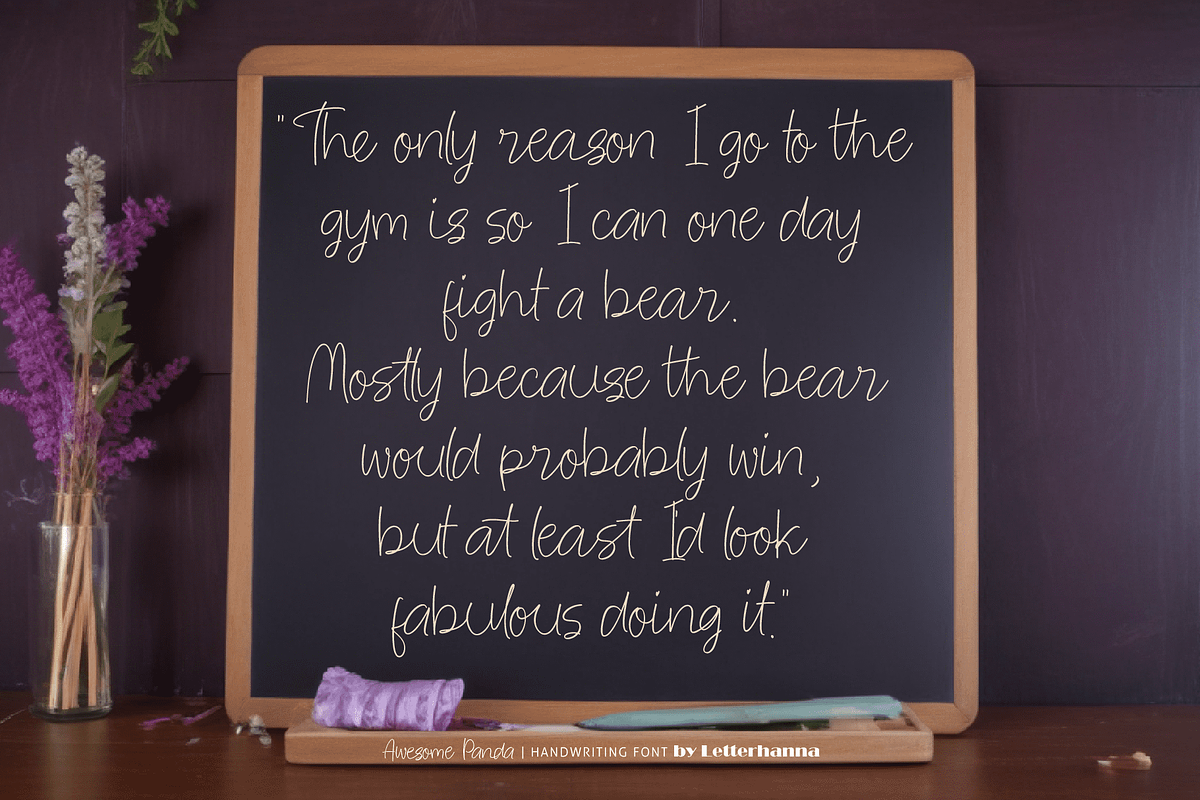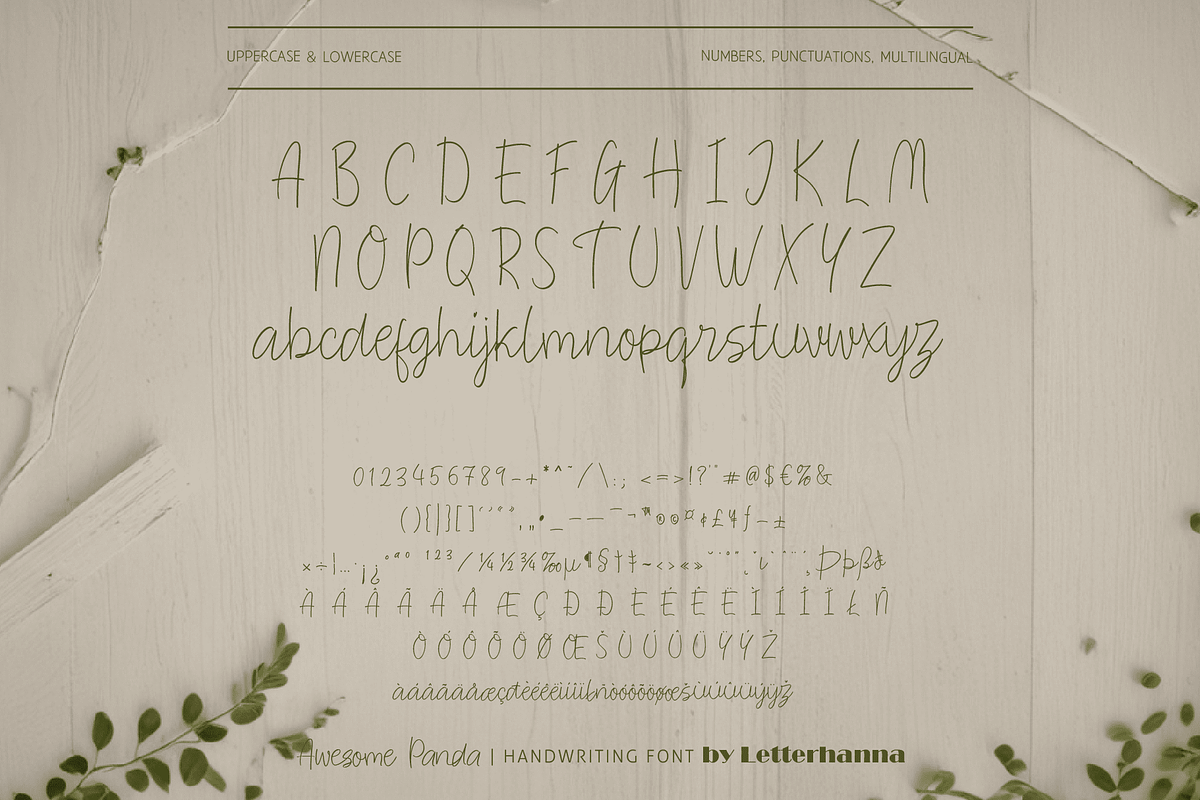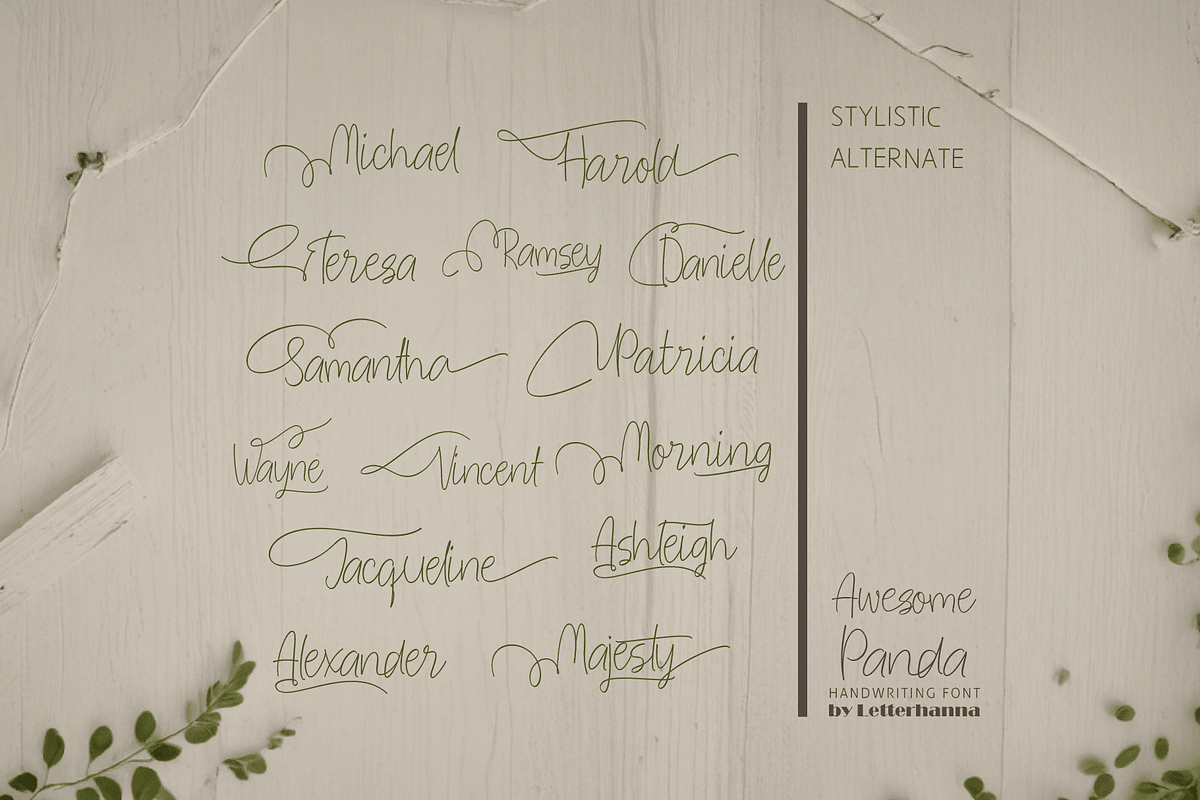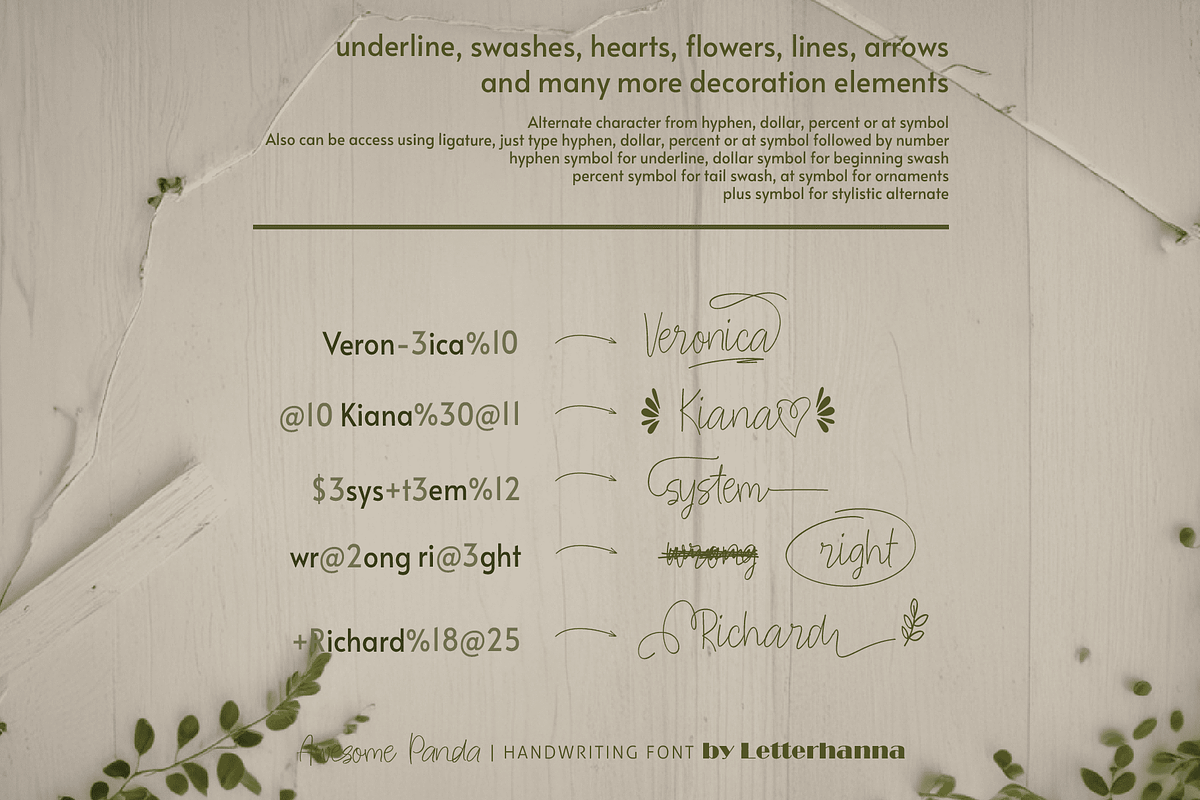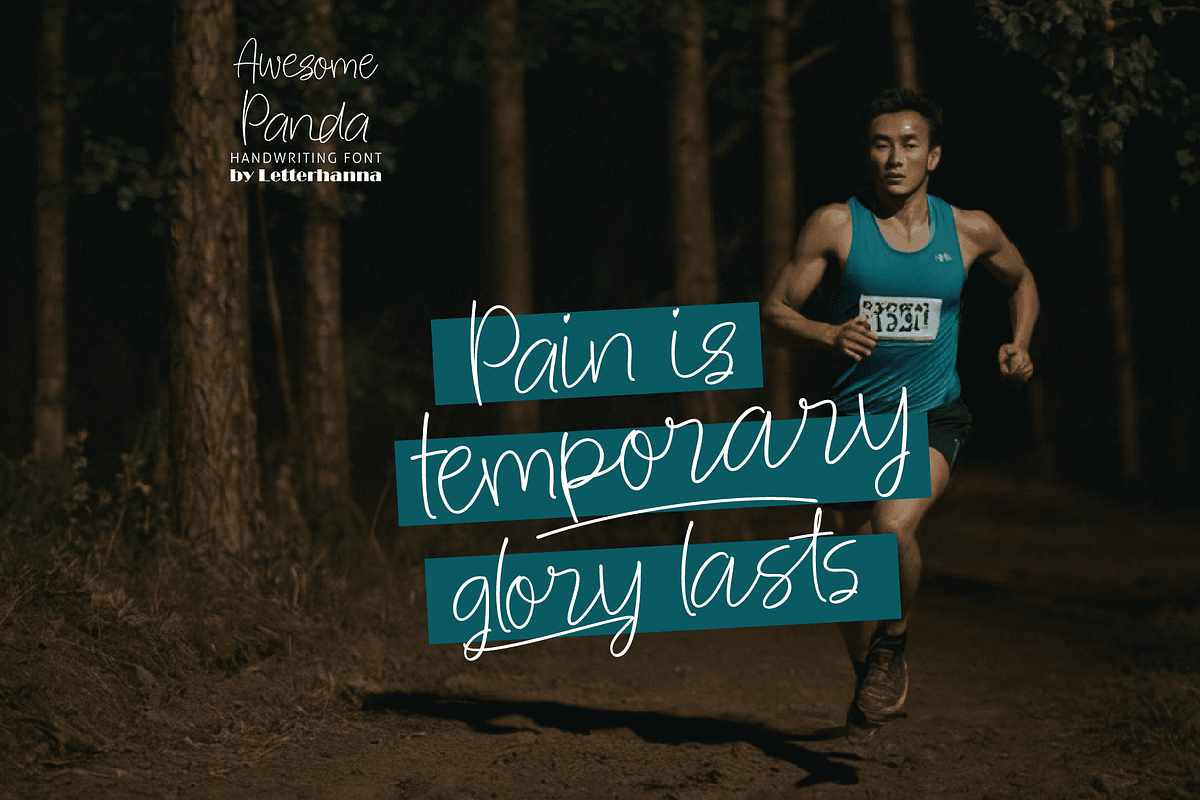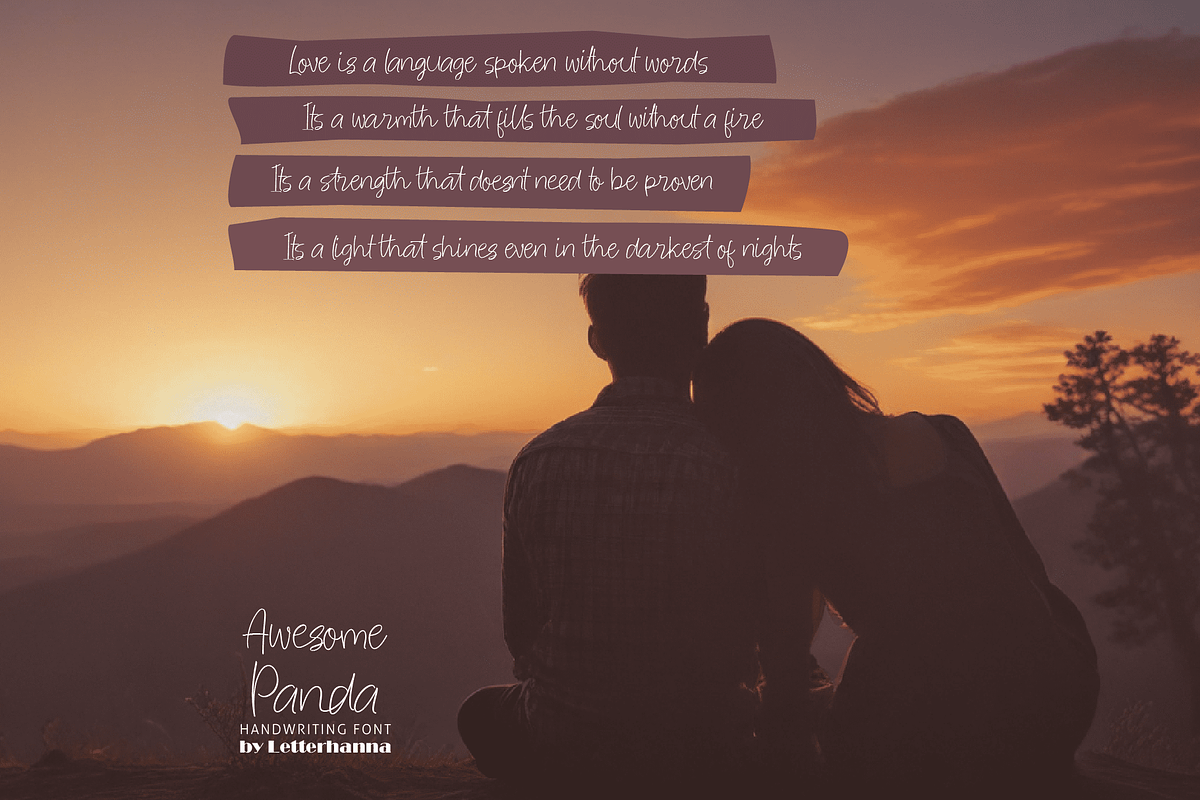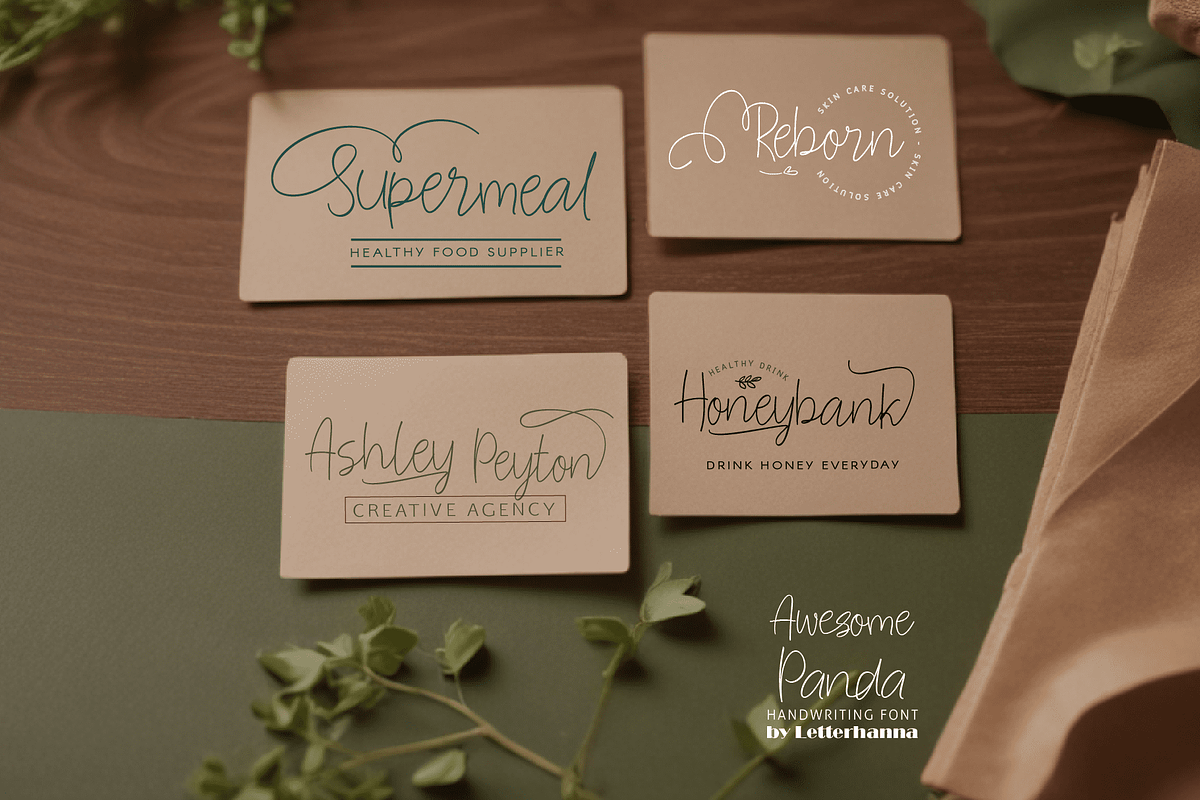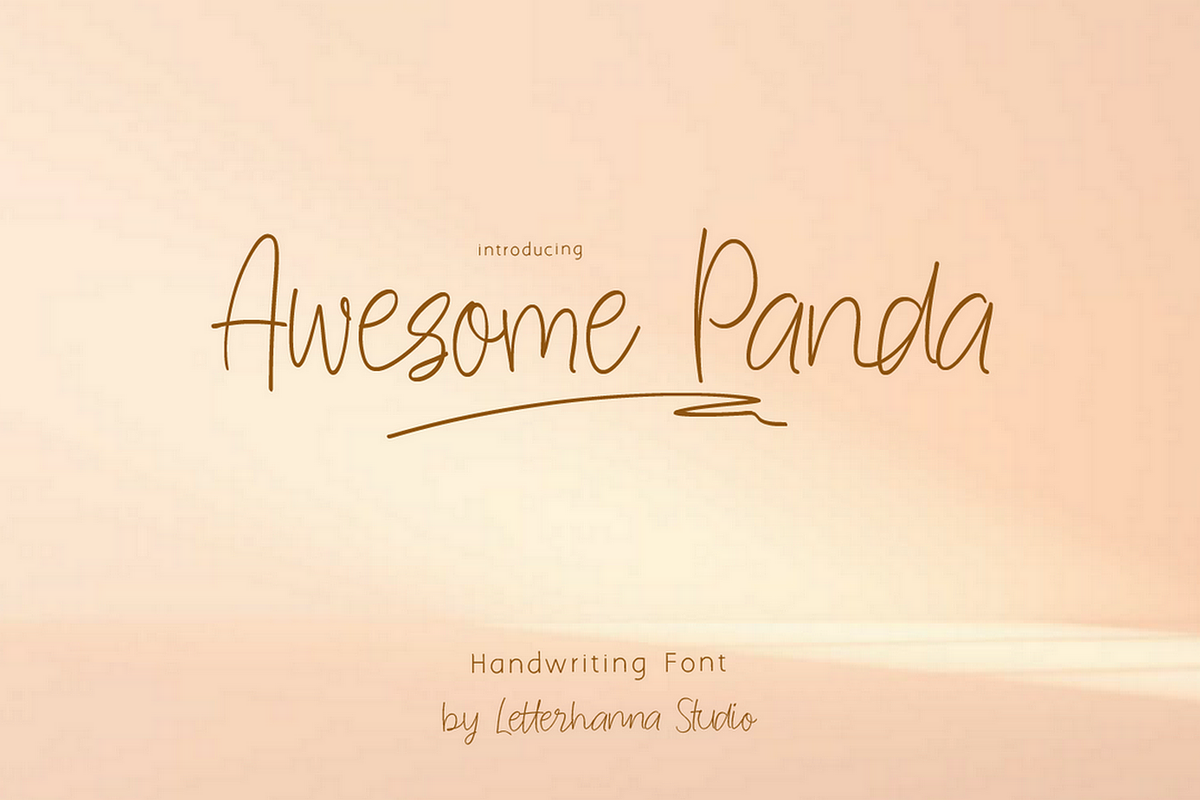
Awesome Panda Font
Unleash your inner panda-monium with the arrival of Awesome Panda, a brand new handwriting script font that's bursting with cuteness! This playful typeface is perfect for adding a touch of whimsy and charm to your designs.
Awesome Panda isn't just adorable, it's also incredibly versatile. Packed with a treasure trove of stylistic alternates, swashes, and ligatures, this font allows you to unleash your creativity and craft truly unique designs. From playful invitations to heartfelt greetings, Awesome Panda has the power to transform your words into little works of art.
So, ditch the ordinary and embrace the extraordinary with Awesome Panda! Dive into a world of delightful characters and let your imagination run wild. This one-of-a-kind font is sure to become a cherished companion for all your handwritten design adventures.
Easy Access to Glyphs and Swashes
Accessing Stylistic Alternates
Stylistic alternates can be accessed by typing a plus symbol "+" in front of the original letter. For example, type "+a" to get the stylistic alternate of the letter a.
Accessing Swashes and Ornaments
Underline Swashes: Use a hyphen symbol "-" followed by a number between 1 and 30. For example, type "-3", "-22", or "-17" to get various underline swashes.
Head/Beginning Swashes: Use a dollar sign "$" followed by a number between 1 and 9. For example, type "$2" or "$8" to get different head/beginning swashes.
Tail/Ending Swashes: Use a percent sign "%" followed by a number between 1 and 30. For example, type "%3" or "%15" to get various tail/ending swashes.
Ornaments: Use an "at" symbol "@" followed by a number between 1 and 26. For example, type "@4" or "@13" to get different ornaments.
PUA Encoding for Ease of Use, which means you can access all the glyphs and swashes with ease!
Uppercase and lowercase letters
Numbers and punctuation marks
Beginning and ending swashes
Underline swashes
Stylistic alternates
Ornaments
Easy access to swashes using ligatures